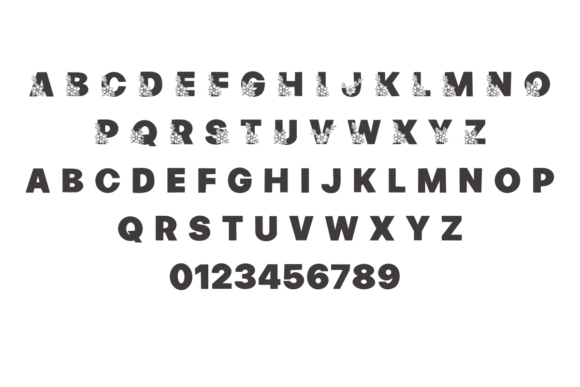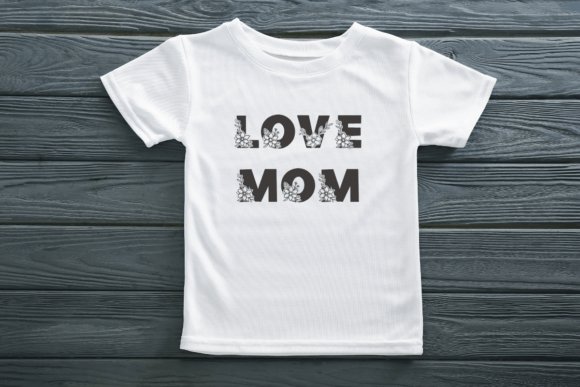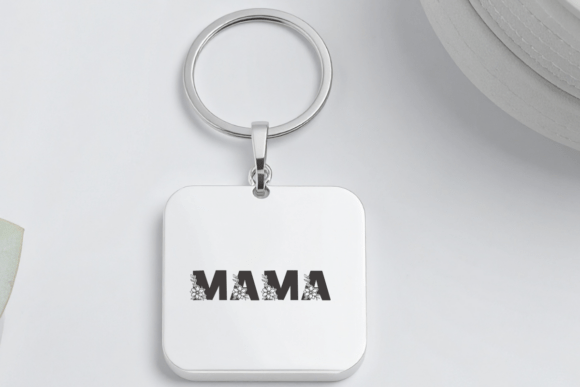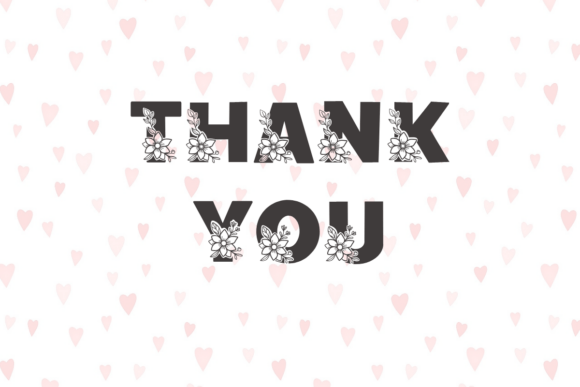
Introducing FLORAL MOM: The Perfect Decorative Font for Designers and Crafters
Are you a designer, crafter, or DIY enthusiast looking for a unique and creative font to add a personal touch to your projects? Look no further than FLORAL MOM, a beautiful decorative font that’s perfect for a wide range of applications. In this article, we’ll explore the features and benefits of FLORAL MOM, and show you how to make the most of this versatile font.
What is FLORAL MOM?
FLORAL MOM is a decorative font that’s designed to add a touch of elegance and whimsy to your projects. With its delicate floral patterns and intricate details, this font is perfect for creating beautiful and eye-catching designs. Whether you’re making greeting cards, writing in a diary, or creating social media posts, FLORAL MOM is the perfect choice.
Uses for FLORAL MOM
One of the best things about FLORAL MOM is its versatility. This font can be used for a wide range of projects, including:
- Note-taking: Add a touch of elegance to your notes and journals with FLORAL MOM.
- Diary writing: Make your diary entries more beautiful and personal with this decorative font.
- Greeting cards: Create stunning greeting cards for special occasions like birthdays, weddings, and holidays.
- Banners: Use FLORAL MOM to create eye-catching banners for parties, events, or promotions.
- Content creation: Add a touch of personality to your blog posts, articles, or social media content with this unique font.
- Mugs and ceramics: Create beautiful designs for mugs, plates, and other ceramics with FLORAL MOM.
- Cards and invitations: Design stunning cards and invitations for special occasions.
- Shirts and apparel: Use FLORAL MOM to create unique and stylish designs for t-shirts, hoodies, and other apparel.
- Stationery: Add a touch of elegance to your stationery, including letterheads, envelopes, and notebooks.
- Social media posts: Make your social media posts stand out with this beautiful decorative font.
Features of FLORAL MOM
FLORAL MOM has several features that make it a great choice for designers and crafters. Some of its key features include:
- Delicate floral patterns: The font features intricate and beautiful floral patterns that add a touch of elegance to any project.
- Intricate details: The font has intricate details that make it perfect for creating stunning designs.
- Easy to read: Despite its decorative nature, FLORAL MOM is easy to read and understand.
- Versatile: The font can be used for a wide range of projects, from notes and diaries to banners and social media posts.
Tips for Using FLORAL MOM
Here are some tips for getting the most out of FLORAL MOM:
- Experiment with different colors: Try out different colors and color combinations to add depth and interest to your designs.
- Mix and match: Combine FLORAL MOM with other fonts and graphics to create unique and eye-catching designs.
- Pay attention to spacing: Make sure to leave enough space between lines and words to ensure that your text is easy to read.
- Use it for headings and titles: FLORAL MOM is perfect for headings and titles, so use it to add a touch of elegance to your designs.
| Author | Ketsarin |
FLORAL MOM is a beautiful decorative font that’s perfect for designers, crafters, and DIY enthusiasts. With its delicate floral patterns, intricate details, and versatility, this font can be used for a wide range of projects. Whether you’re making greeting cards, writing in a diary, or creating social media posts, FLORAL MOM is the perfect choice. So why not give it a try and see what amazing designs you can create?